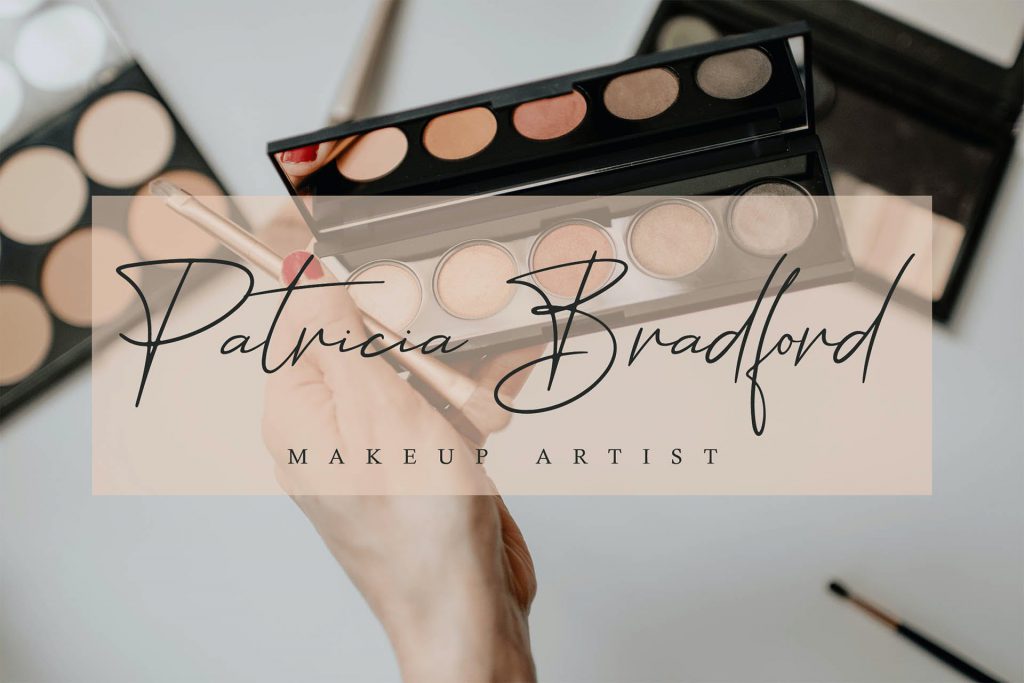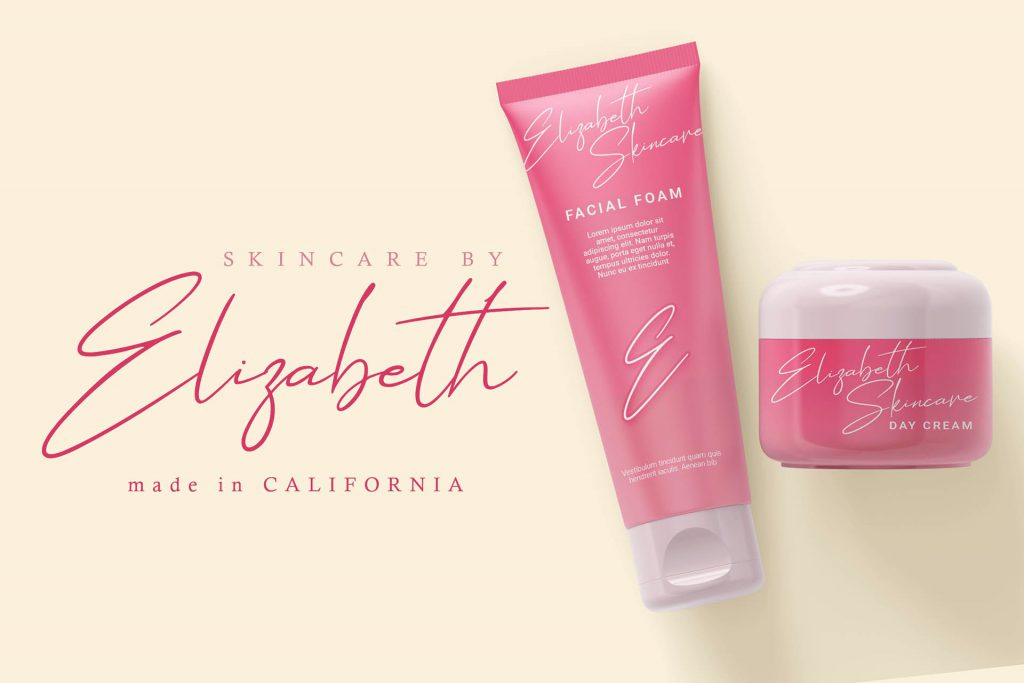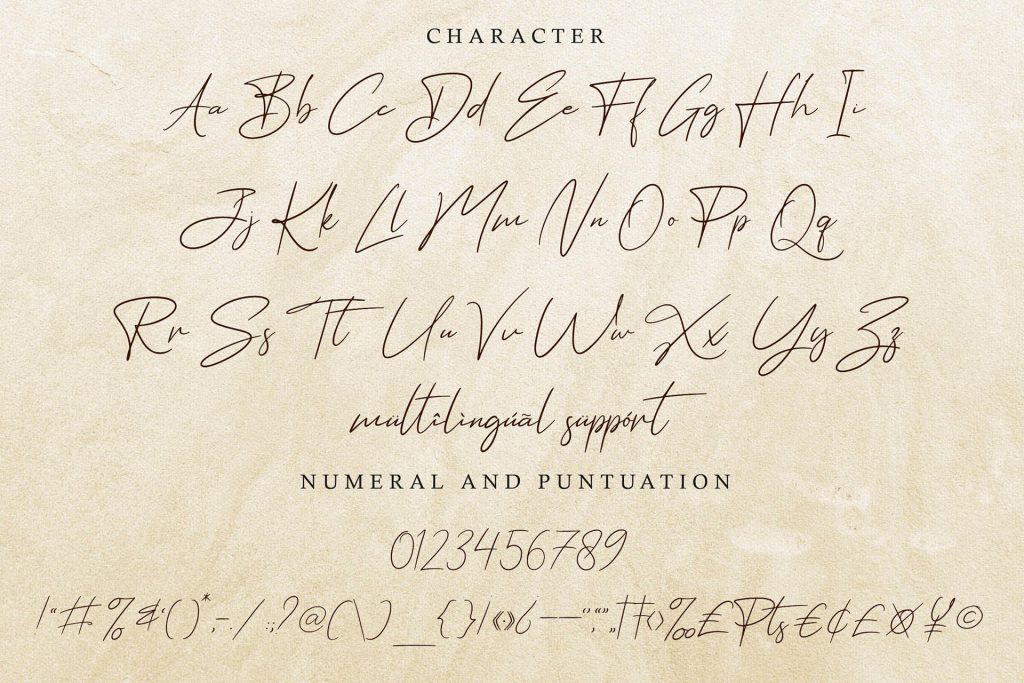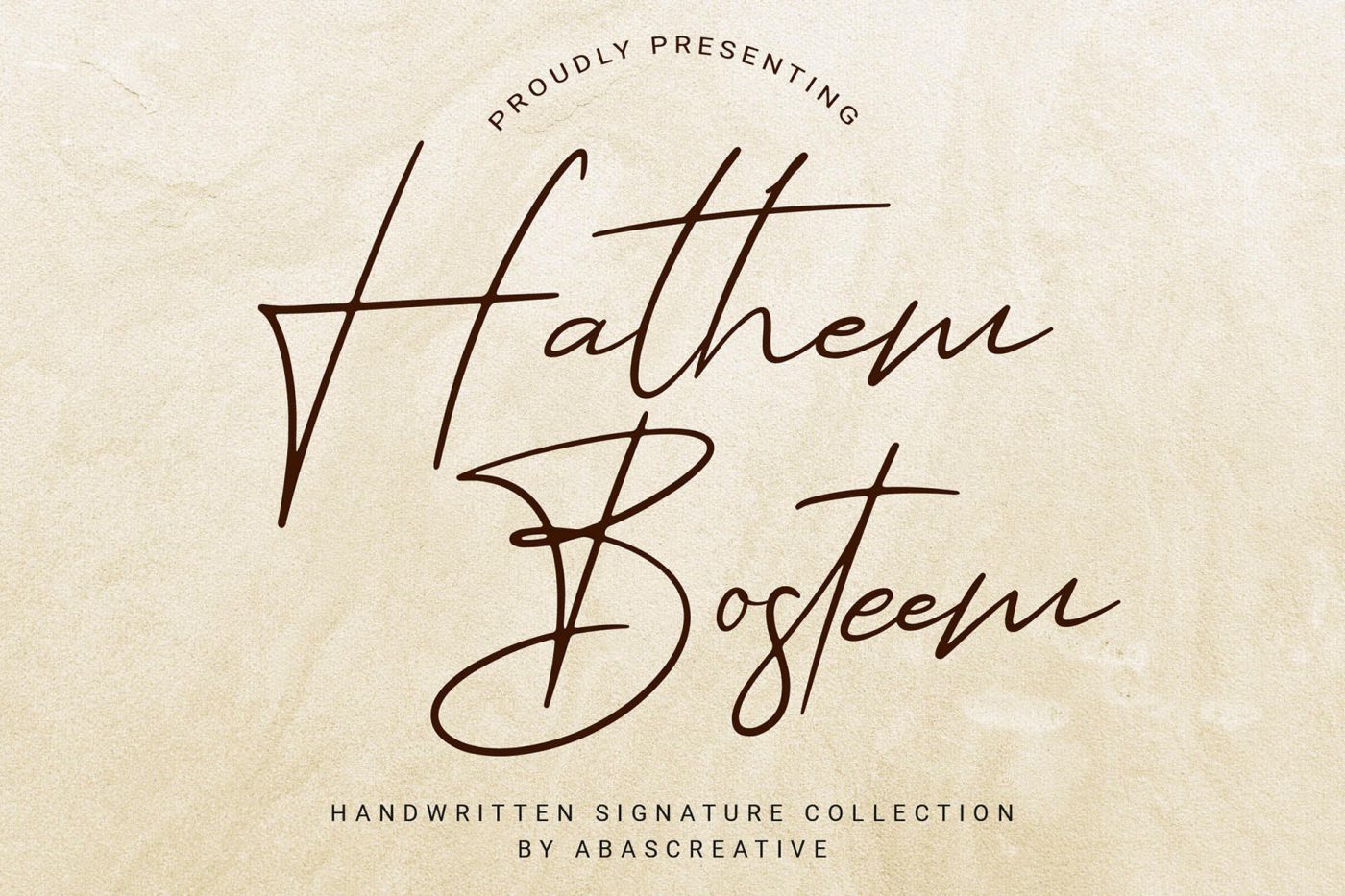
Free Hathem Bosteem Signature Font is a gorgeous, relaxed handwritten font. Due to its versatile style, it can easily become a true favorite. Fall in love with Hathem Bosteem’s authentic feel and use it to create outstanding wedding invitations, beautiful stationary art, eye-catching social media posts, and cute greeting cards. This free font is excellent for branding projects, editorial designs, product packaging, and any other project needs. Coming with a TTF format file, also completely with web font. So, this free font comes with a personal use license. But, don’t worry you can get more features by purchasing the premium version.